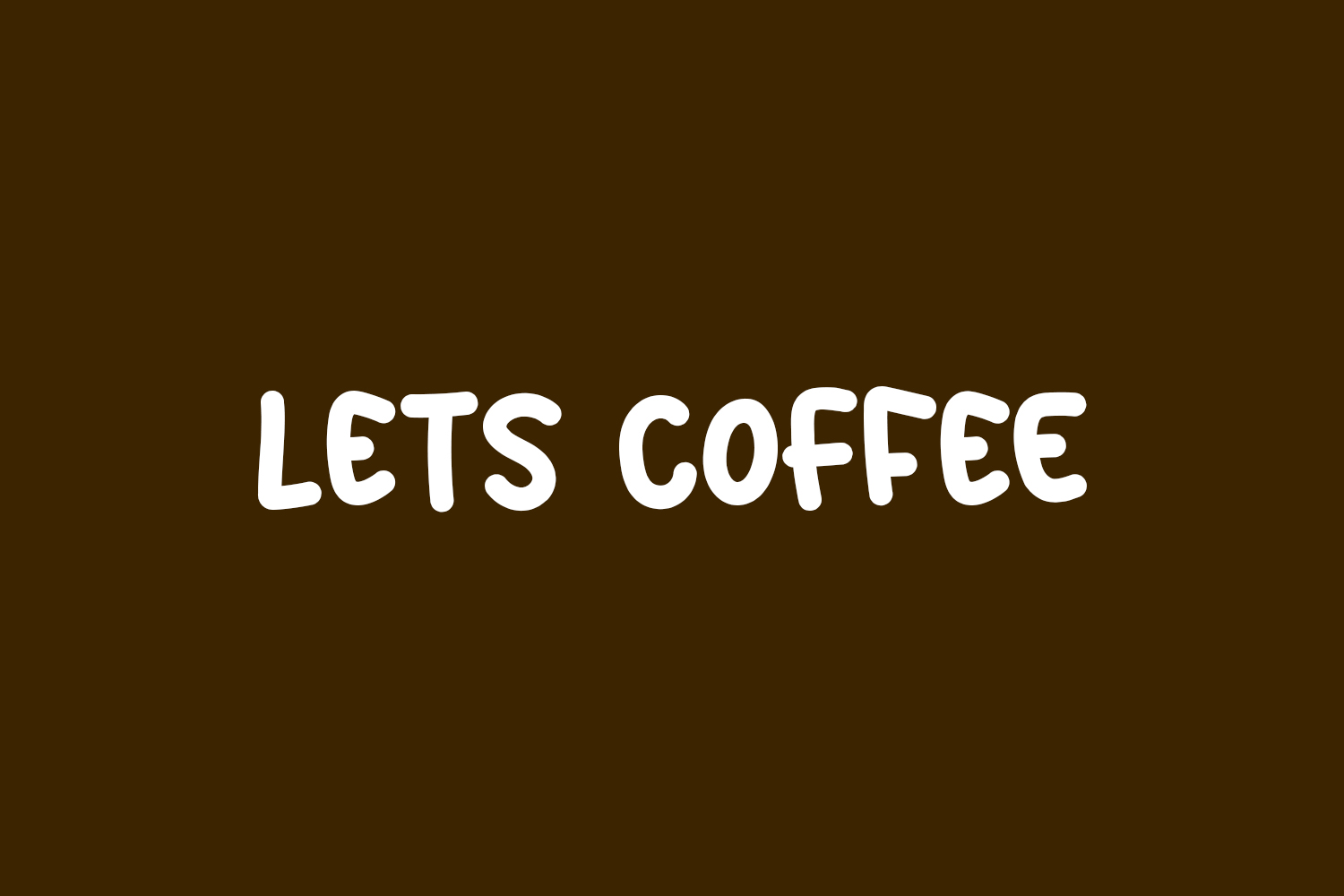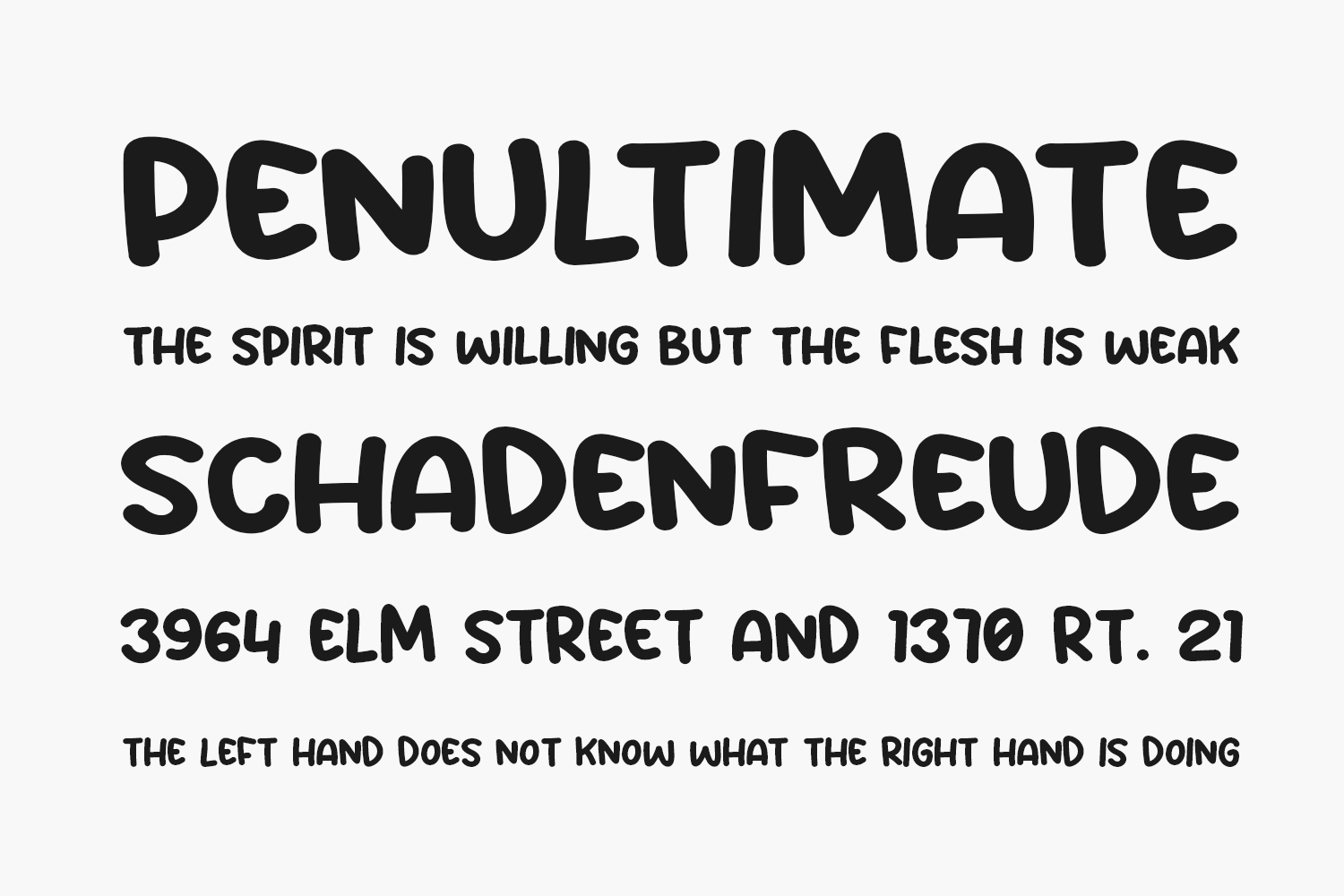
Lets Coffee Free Font is a modern and fancy display font perfect for posters, logos, magazines, book covers, banners, and many more! Get this amazing freebie, and use it to create lovely designs. Lets Coffee Free Font was designed by Khurasan and is free for personal or commercial use.